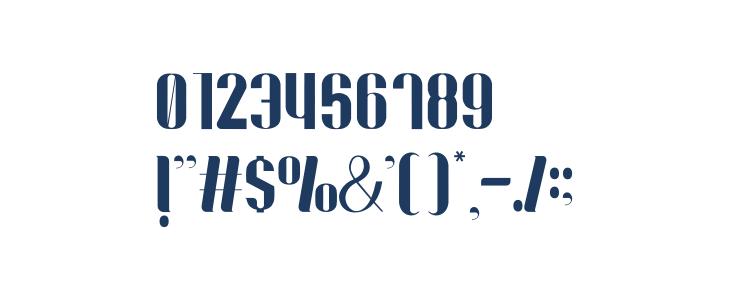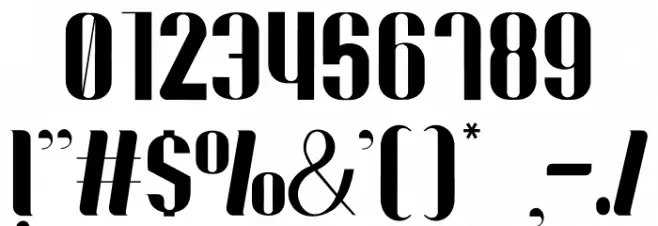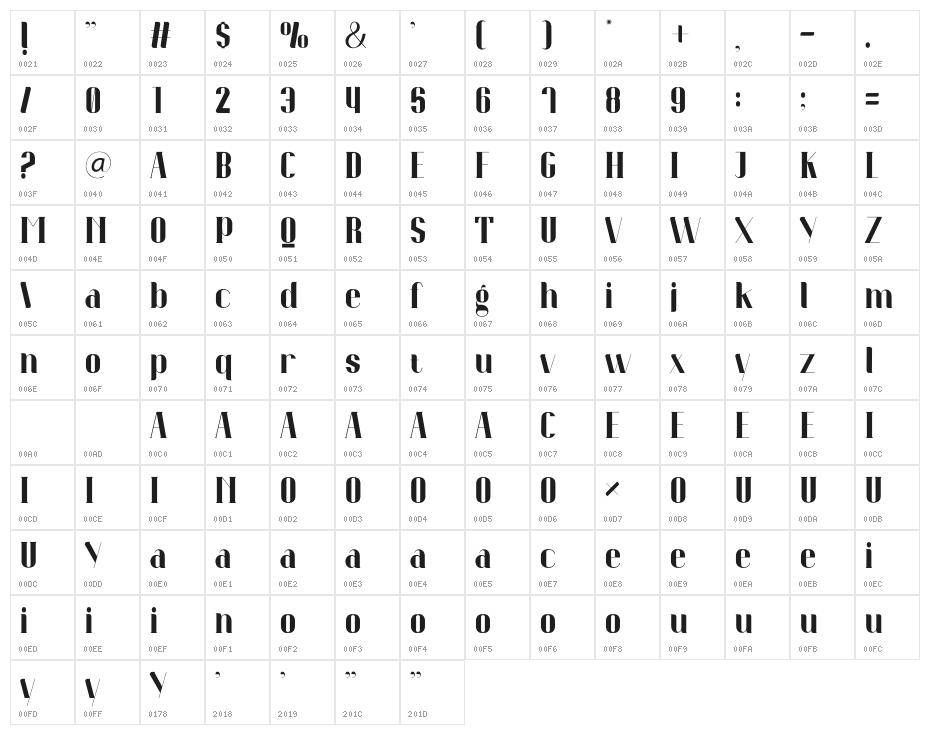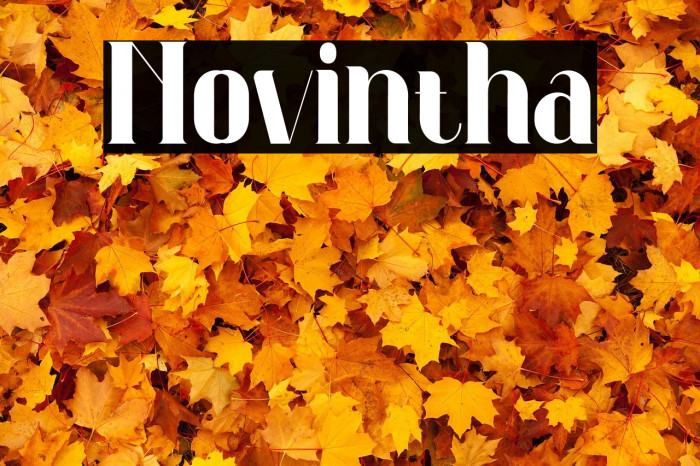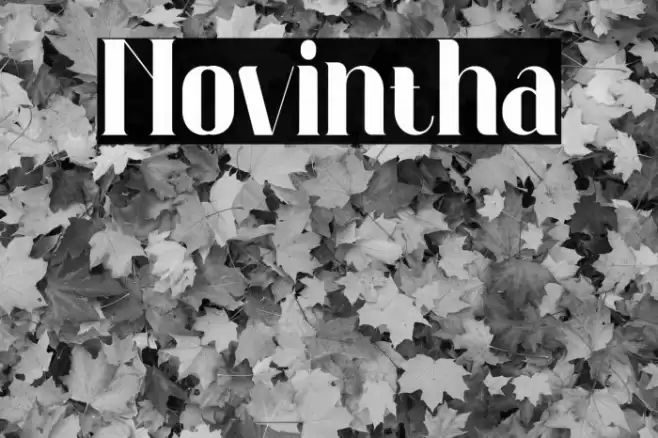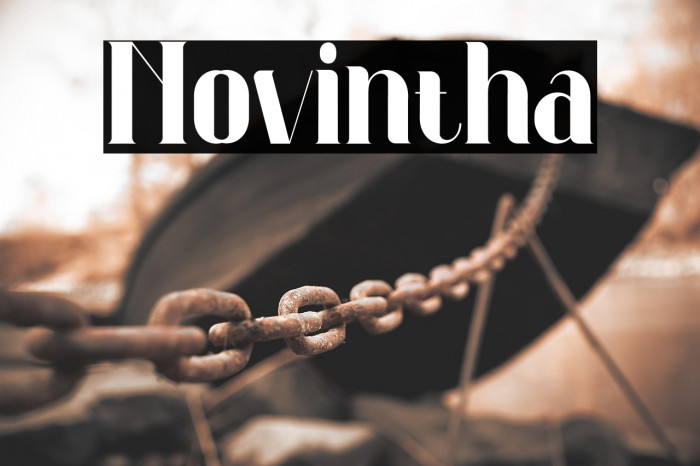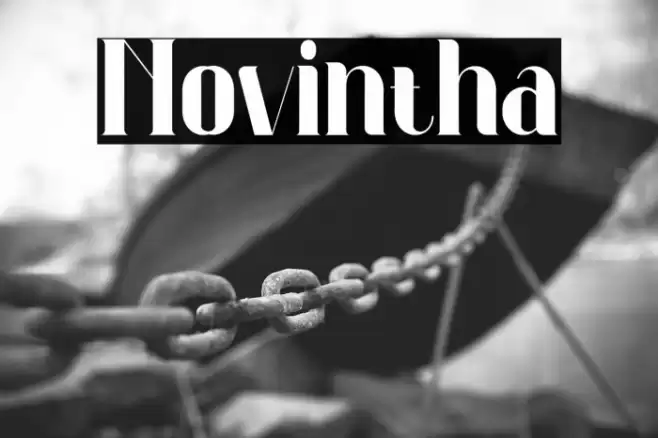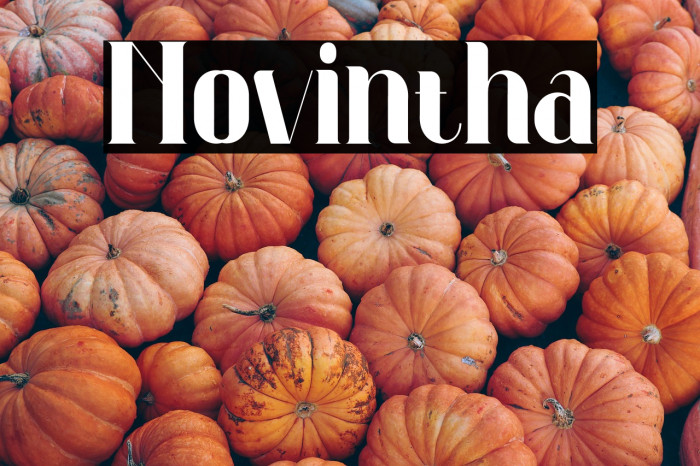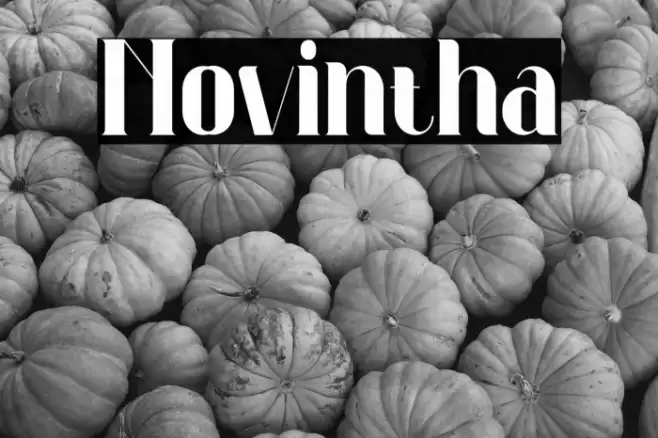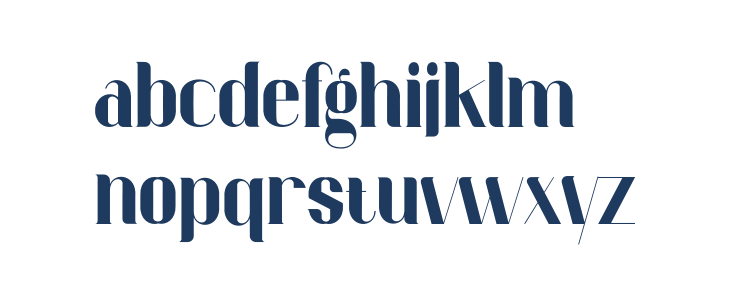
Novintha Font
Novintha Description
This font features a bold and striking design with a modern twist. The uppercase letters are tall and narrow, with sharp angles and a distinct geometric influence. The lowercase letters maintain a consistent style, offering a harmonious blend of curves and straight lines. Numbers and special characters follow the same aesthetic, providing a cohesive look across all elements. The font's unique style makes it stand out, with high contrast between thick and thin strokes, adding to its visual appeal.